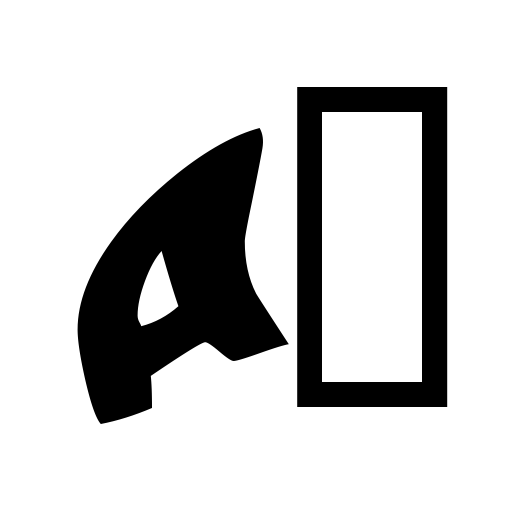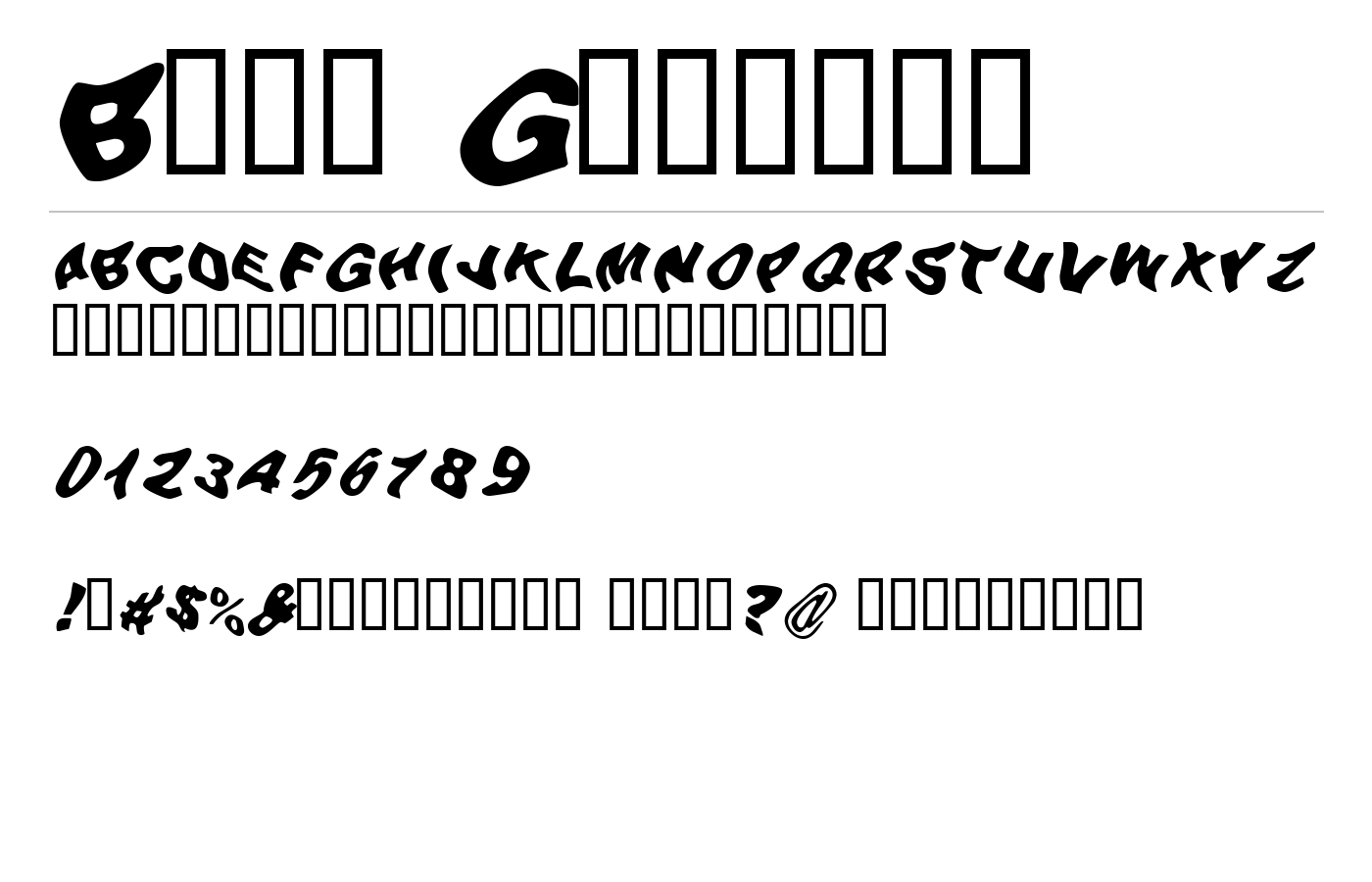
Beer Goggles is a bold, playful script font with an informal, hand-painted feel characterized by thick, rounded strokes and energetic letter shapes. Its strong presence and quirky style make it perfect for eye-catching headlines, logos, or casual branding projects seeking a fun and approachable vibe. This font works well in creative settings where personality and impact are key.
Beer Goggles Font
About Beer Goggles Font